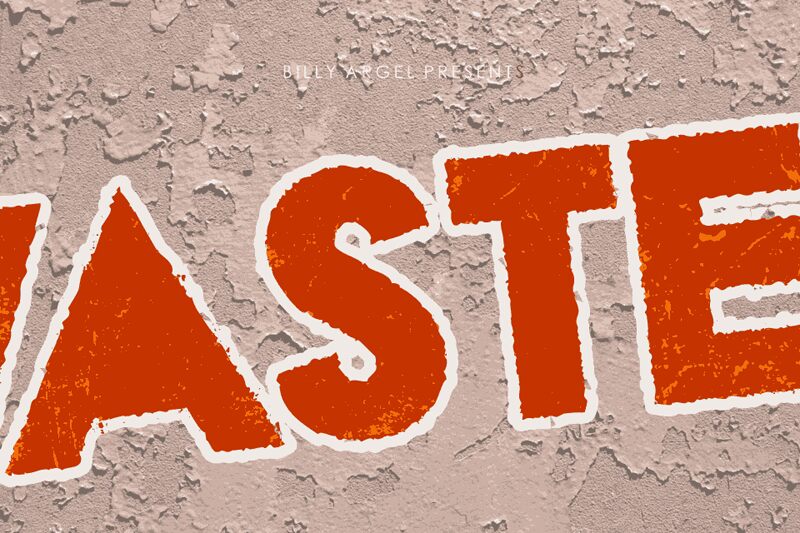
WASTED PERSONAL USE Regular
WASTED, the edgy and grungy font designed by Billy Argel, is perfect for projects that require a bold statement. Its eroded style gives it a unique and distressed look, adding character to any design. The extra-bold weight of the font demands attention and its semi-expanded width makes it suitable for large headlines or titles in posters, flyers, or album covers. Use WASTED to add an urban vibe to your branding materials or to create an alternative feel in your website design. Let your creativity run wild with this versatile display font.
Three layered fonts.